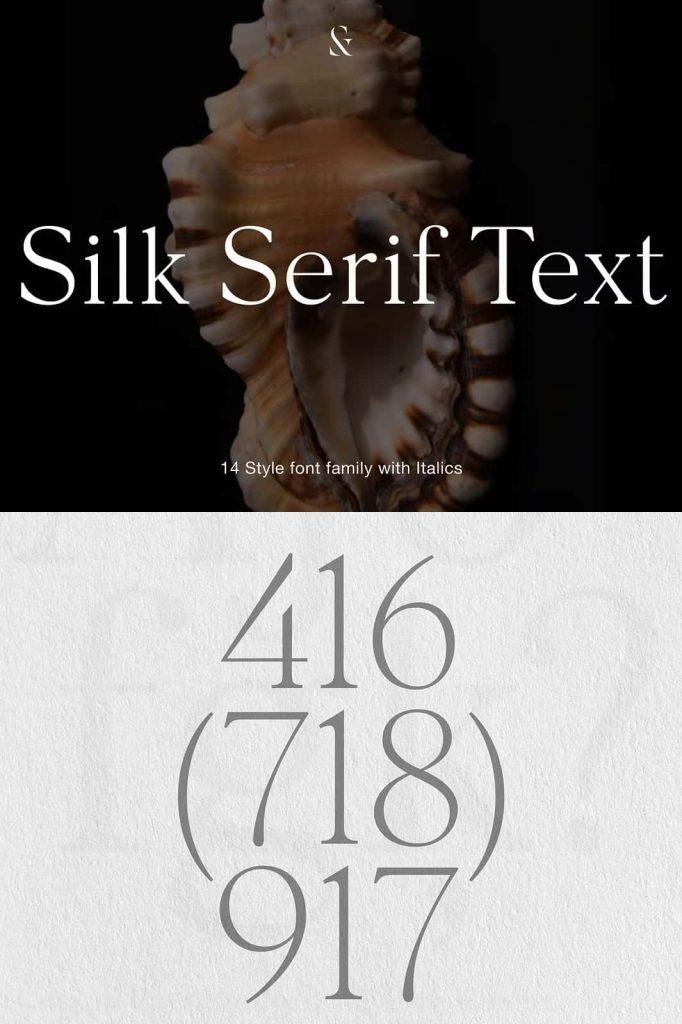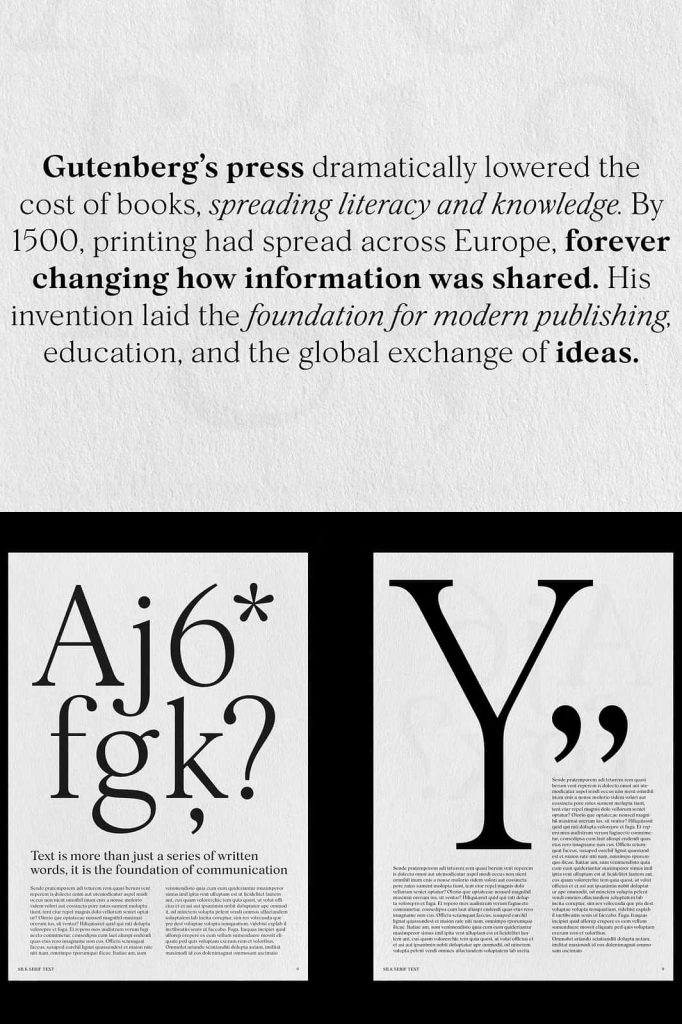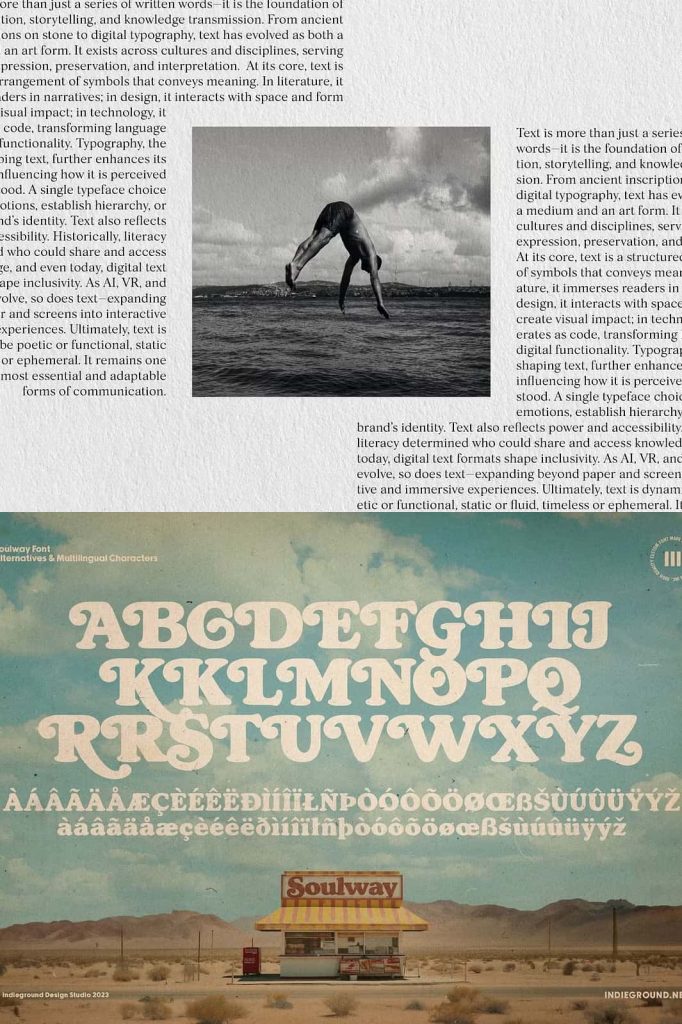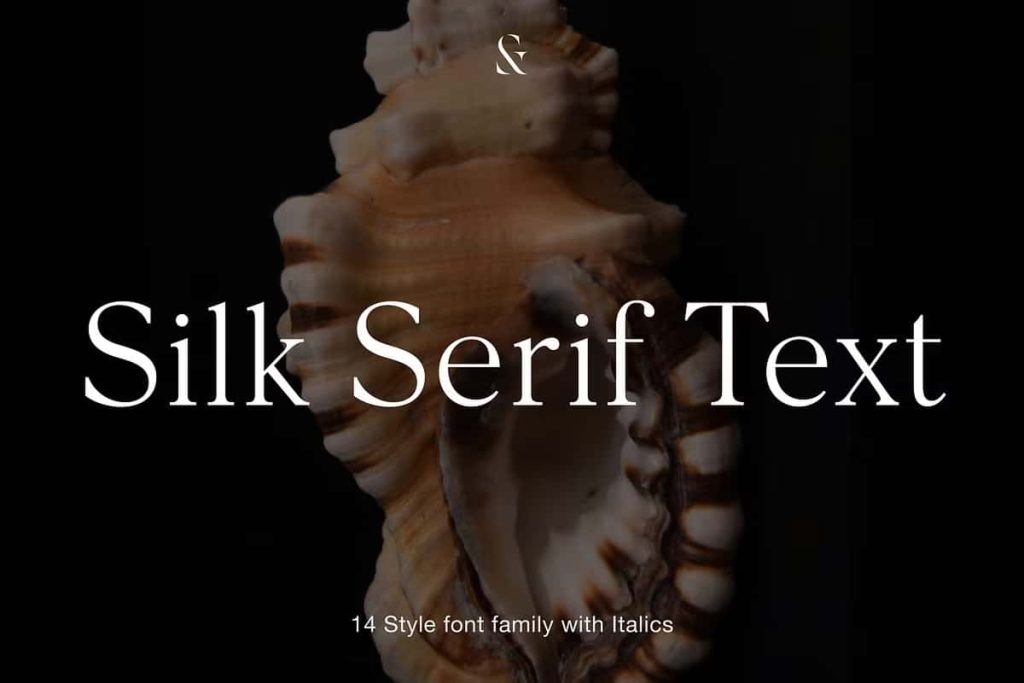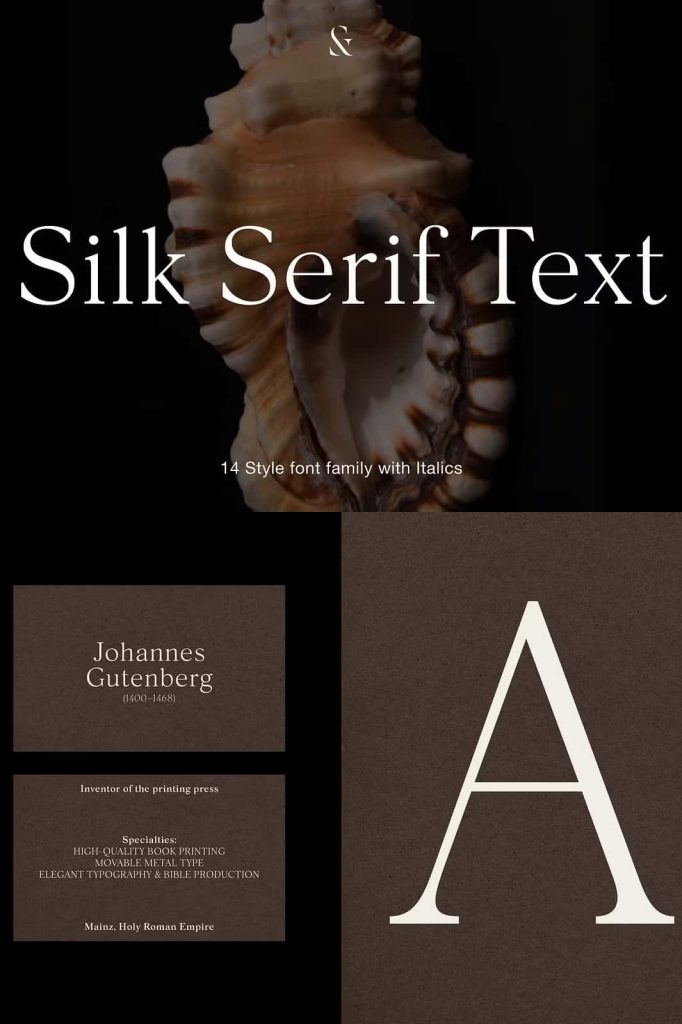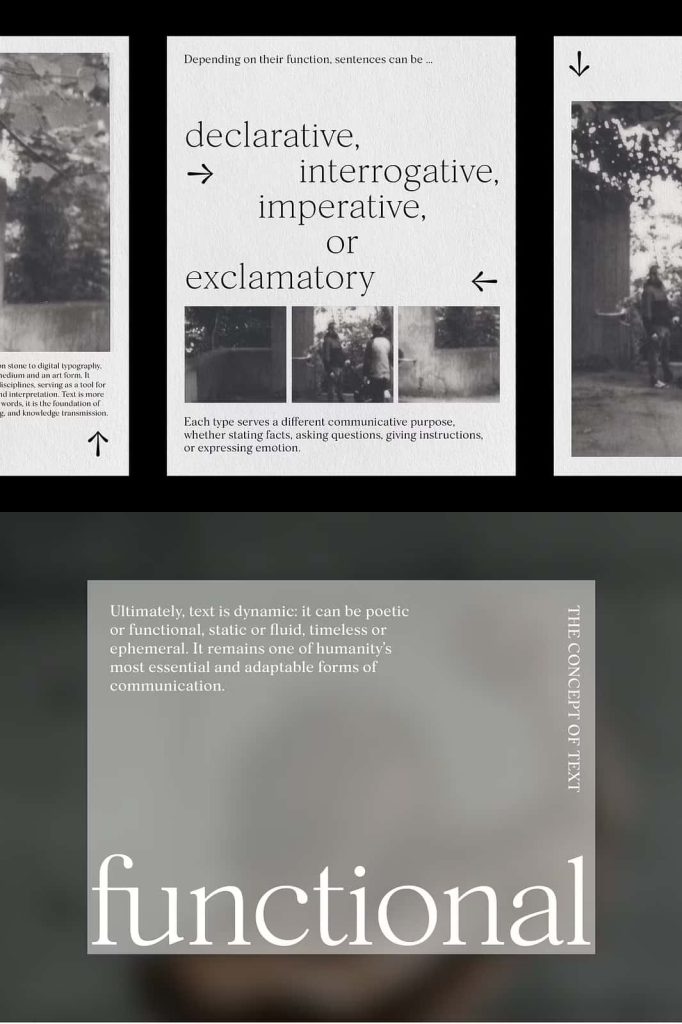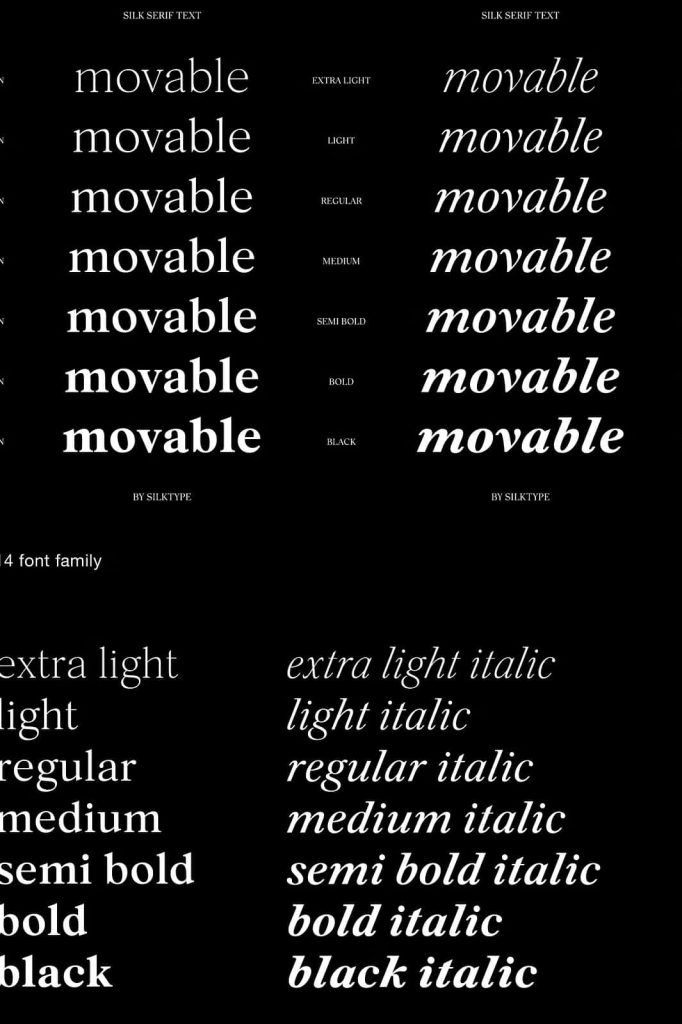
Silk Serif Text: Elegant Serif Typography Optimized for Readability
Silk Serif Text is a carefully crafted extension of the original Silk Serif, developed with a clear purpose: to deliver exceptional readability at smaller text sizes without sacrificing elegance or sophistication. While Silk Serif shines in display settings, Silk Serif Text is engineered to perform flawlessly in captions, body text, and long-form reading environments. This font bridges beauty and function, making it an essential choice for editorial, branding, and digital design projects.
By refining proportions, softening contrast, and improving spacing, Silk Serif Text transforms refined serif aesthetics into a practical and highly readable text font. It preserves the visual DNA of Silk Serif while adapting it for sustained reading comfort.
Designed Specifically for Small Text Sizes
Silk Serif Text is purpose-built for use at small and medium sizes, where clarity and comfort matter most. Unlike display serifs that lose definition when scaled down, this font maintains consistent legibility across paragraphs and dense layouts. Each letterform is carefully adjusted to prevent visual clutter and eye strain.
The font’s construction ensures that characters remain distinct even in tight compositions. This makes Silk Serif Text ideal for books, magazines, websites, user interfaces, and any design that involves extended reading.
Refined Proportions for Smooth Reading Flow
The proportions of Silk Serif Text have been subtly rebalanced to improve rhythm and flow. Wider counters, moderate x-height, and well-defined shapes help guide the reader’s eye naturally from one letter to the next. This creates a comfortable reading experience, even across long passages of text.
Lower Contrast for Improved Legibility
One of the key enhancements in Silk Serif Text is its lower stroke contrast compared to the original Silk Serif. High-contrast serif fonts often look beautiful in headlines but can reduce clarity in small sizes. Silk Serif Text addresses this by softening transitions between thick and thin strokes.
This lower contrast improves letter stability on screens and in print, especially in environments where resolution or lighting may vary. As a result, text remains clear and consistent across devices, paper types, and viewing conditions.
Optimized Spacing for Long-Form Content
Spacing plays a crucial role in text readability, and Silk Serif Text has been carefully spaced to support long-form content. Improved letter spacing and balanced word spacing prevent text from feeling cramped or uneven. This attention to spacing allows paragraphs to breathe, making them easier to scan and read.
Whether used in articles, reports, books, or digital content, Silk Serif Text supports sustained reading without fatigue. Designers can confidently use it for dense layouts without compromising visual comfort.
Perfect for Captions, Body Text, and Editorial Design
Silk Serif Text excels in captions, footnotes, and body copy where clarity is essential. It also performs beautifully in editorial layouts, such as magazines and newspapers, where typography must balance style and functionality. The font enhances readability while maintaining a refined and professional tone.
Maintaining the Elegance of Silk Serif
While Silk Serif Text focuses on practicality, it never abandons elegance. The font retains the graceful serif details and refined structure of the original Silk Serif. This consistency allows designers to pair Silk Serif Text seamlessly with Silk Serif in the same project.
Using both fonts together creates a cohesive typographic system. Designers can apply Silk Serif to headlines and Silk Serif Text to body copy, achieving visual harmony across all text levels.
Versatile for Print and Digital Applications
Silk Serif Text adapts effortlessly to both print and digital environments. In print, it delivers crisp, readable text with a classic feel. On screens, its balanced proportions and softened contrast ensure clarity across different resolutions and devices.
This versatility makes Silk Serif Text a reliable choice for websites, eBooks, mobile applications, corporate documents, and branding materials that require refined typography at smaller sizes.
A Professional Serif Font for Serious Reading
Silk Serif Text is designed for designers who care deeply about typography and user experience. It proves that readability and elegance can coexist, even in the most text-heavy projects. By combining thoughtful design decisions with timeless serif aesthetics, this font elevates everyday reading into a refined visual experience.
If you are looking for a serif text font that delivers clarity, balance, and sophistication in small sizes, Silk Serif Text offers a dependable and elegant solution for modern long-form typography.